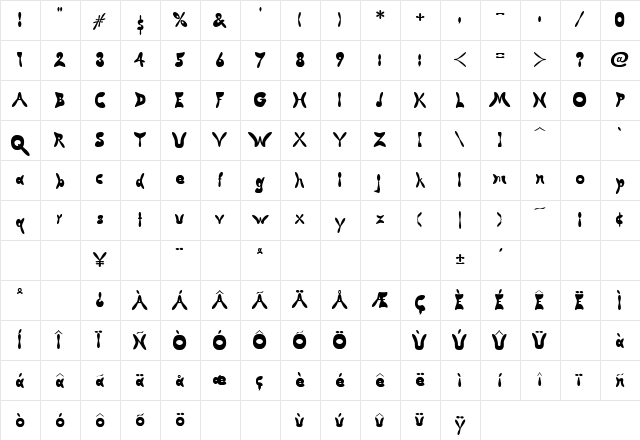
Butterfly Chromosome AOE Regular
Design Context for Butterfly Chromosome AOE
Butterfly Chromosome AOE is a composed and adaptable typeface that performs quietly and consistently across a wide range of design contexts.
Pro Tip: Use Butterfly Chromosome AOE in both headline and body roles to test its range before committing to a single application.